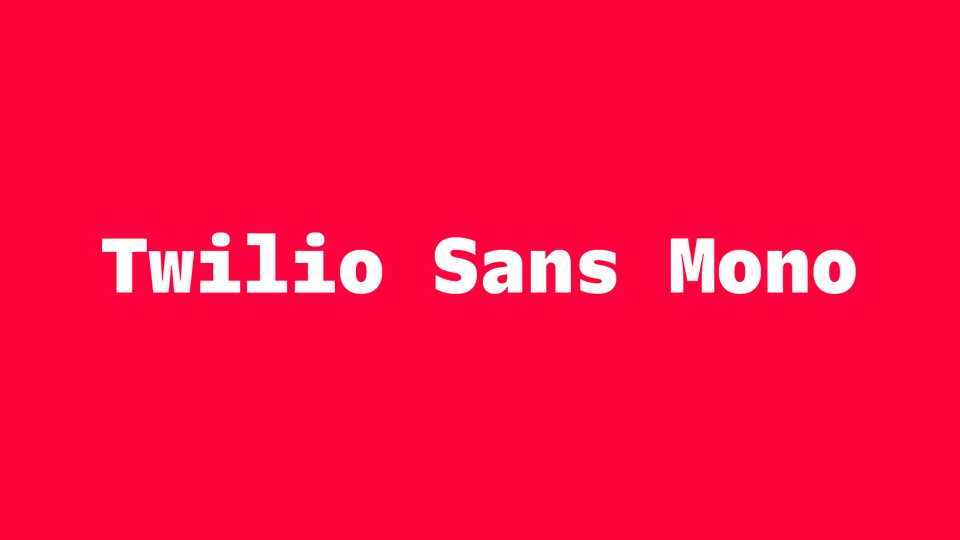
Download Twilio Sans Mono font, a practical, fun, and beautiful coding typeface. Twilio Sans Mono is a distinct programming font designed to fit the needs of every developer.
Designer: Sharp Type Corporation